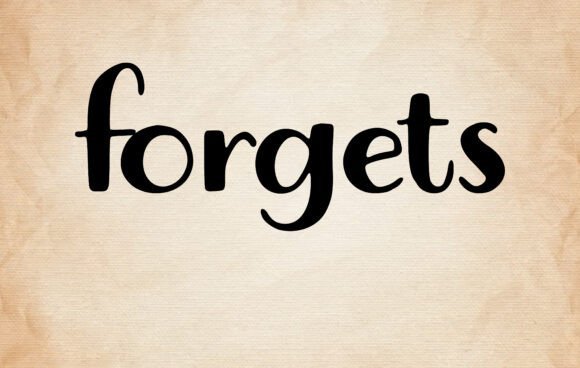
The Font That Forgets Nothing: Unlocking Your Creative Potential
Have you ever stared at a blank page, struggling to find the perfect words to bring your idea to life? We’ve all been there – the blank slate, the racing thoughts, and the desperate search for inspiration. But what if we told you there’s a font that can change all that? Say hello to Forgets Font, the ultimate game-changer for designers and creatives alike.
Designed to be a true favorite, Forgets Font is more than just a pretty face – it’s a powerful tool that can elevate your creative ideas to new heights. With its exceptional legibility and versatility, it’s perfect for a wide range of designs, from magazine headlines to t-shirts, social media graphics, and even wedding invitations. Forgets Font is the perfect addition to your design arsenal, and we’re excited to share its secrets with you.
Key Features of Forgets Font
- Font Family: Forgets Font is a sans-serif font family with a unique, hand-drawn feel.
- Font Size: Available in 5 weights, ranging from Thin (100) to Black (900), with corresponding font sizes.
- Resolution: Designed to be scalable, making it suitable for use at various resolutions, including low-resolution displays.
- Unique Characteristics: Features a distinctive, hand-drawn aesthetic with subtle irregularities and nuances, giving it a human touch.
Forgets Font Review
I recently had the chance to try out “Forgets Font” and I have to say it’s an… interesting experience. ✨ One thing that works well is the unique, hand-drawn aesthetic. The font is perfect for adding a touch of whimsy to your designs, especially for children’s books or advertising campaigns. The letterforms are quite expressive and can add a lot of character to your text.
Another benefit is the wide range of styles and weights available. You can choose from a variety of playful and quirky options, making it easy to find the perfect fit for your design.
- ⚠️ Readability can be a concern in certain contexts. The font’s uniqueness can also make it difficult to read, especially in large blocks of text.
- ⚠️ The font may not be suitable for formal or professional designs, as it can come across as too playful or childish.
Overall, I think “Forgets Font” is a great addition to any designer’s toolkit, but it’s essential to use it judiciously. When used correctly, it can add a lot of personality to your designs. However, it’s not a font for every occasion, and designers should be aware of its limitations.
Forgets Font is perfect for adding a touch of whimsy and personality to your designs, such as:
- Social media graphics
- Print materials, such as business cards and brochures